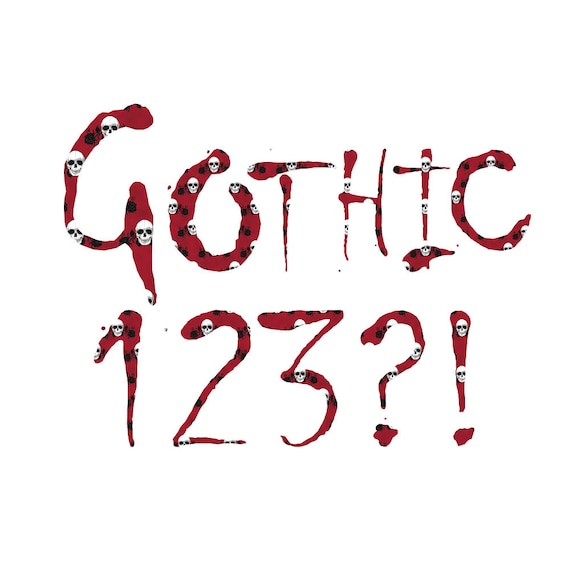
Gothic and halloweeen alphabet and numbers clipart, red foil skull and roses clip art in png format, scary bloody letters for invitations
5 punctuation: comma, full stop, question mark, ampersand and exclamation mark.